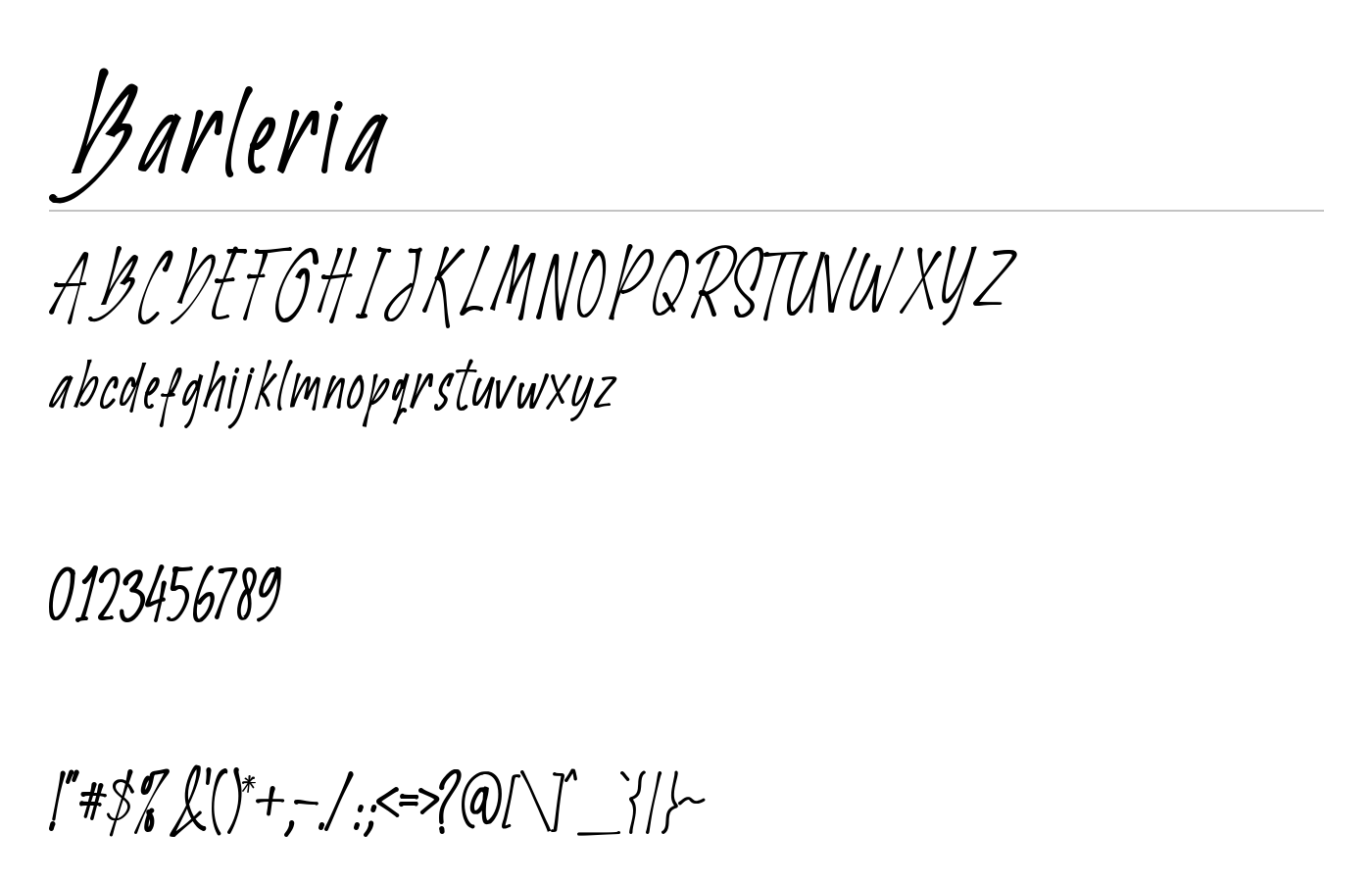
Barleria is a slender, handwritten script font with a casual and dynamic feel. Its tall, narrow letterforms and slight variations in stroke width give it an energetic, personal touch perfect for creative and informal designs. This font works well in logos, invitations, and headline text where a lively yet elegant handwritten style is desired.
Barleria Font